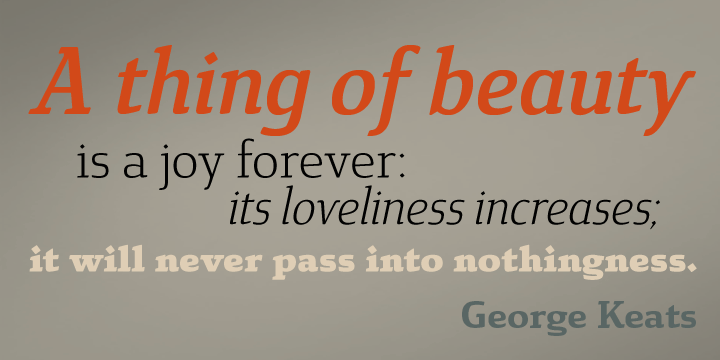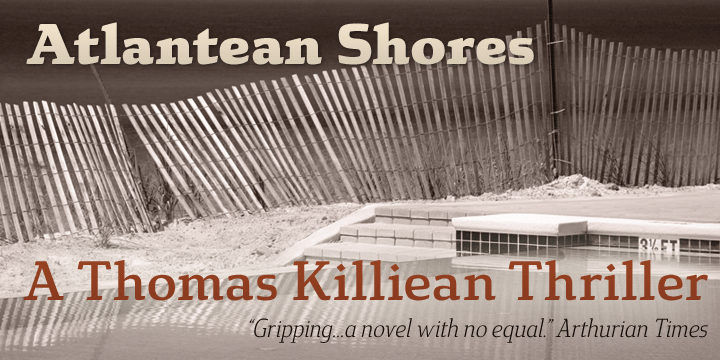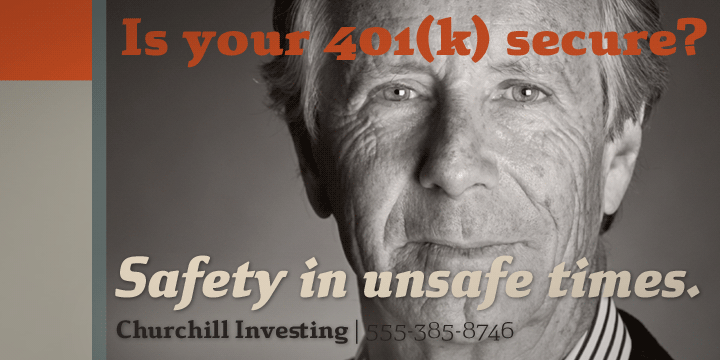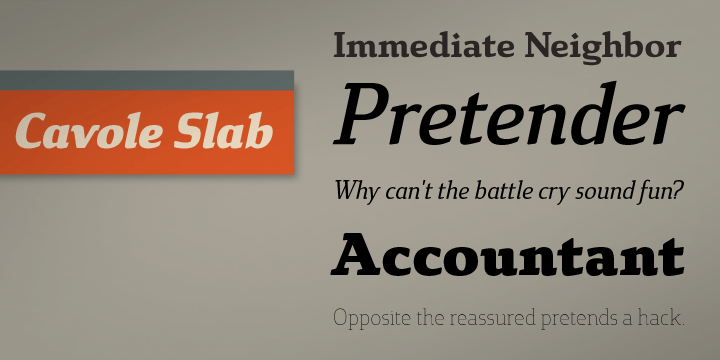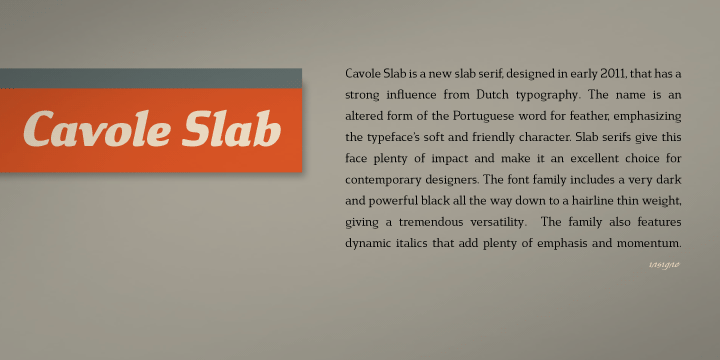
Cavole Slab
Font Family by Insigne
Cavole Slab is a new slab serif, designed in early 2011, that has a strong influence from Dutch typography. The name is an altered form of the Portuguese word for feather, emphasizing the typeface